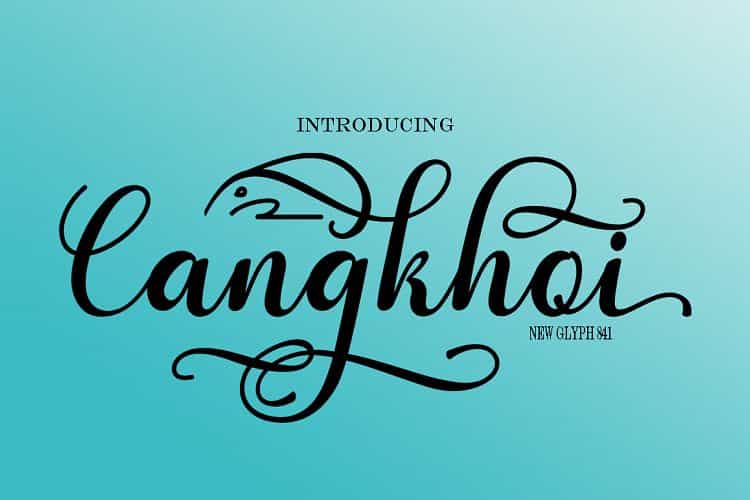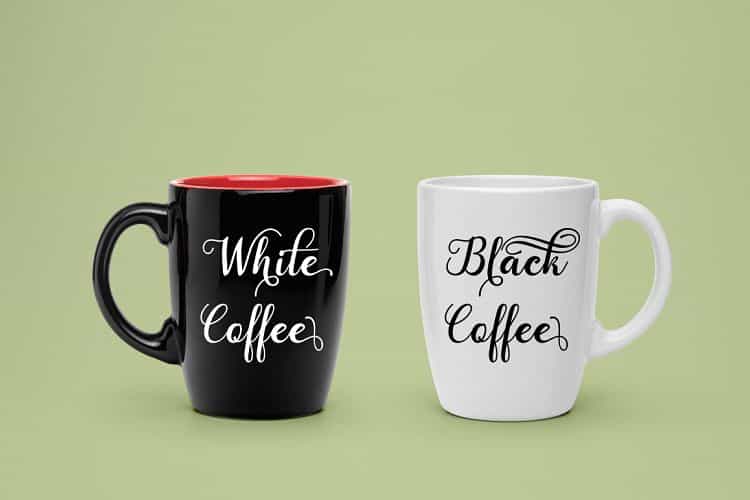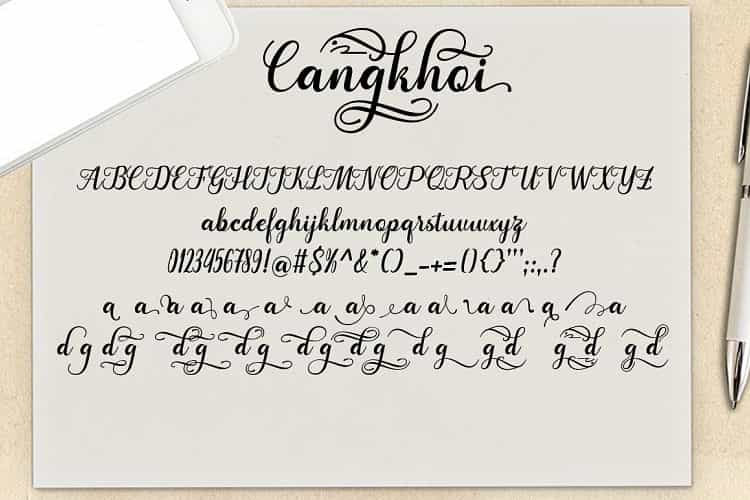
Discover Cangkhoi Script Font, part of the Calligraphy collection—a versatile and unique font perfect for adding a personal touch to your projects. Download it for free and enjoy crafting designs with style, from invitations to social media posts. This font is available exclusively for personal use, giving you the freedom to create without limits. Unlock your creativity with Cangkhoi Script Font today!
Introducing Cangkhoi Font. Cangkhoi New fresh & modern style with handmade calligraphy, decorative characters and dancing lineage!Thus, the wonderful invitations such as greeting cards, branding material, business cards, quotes and posters are so many!